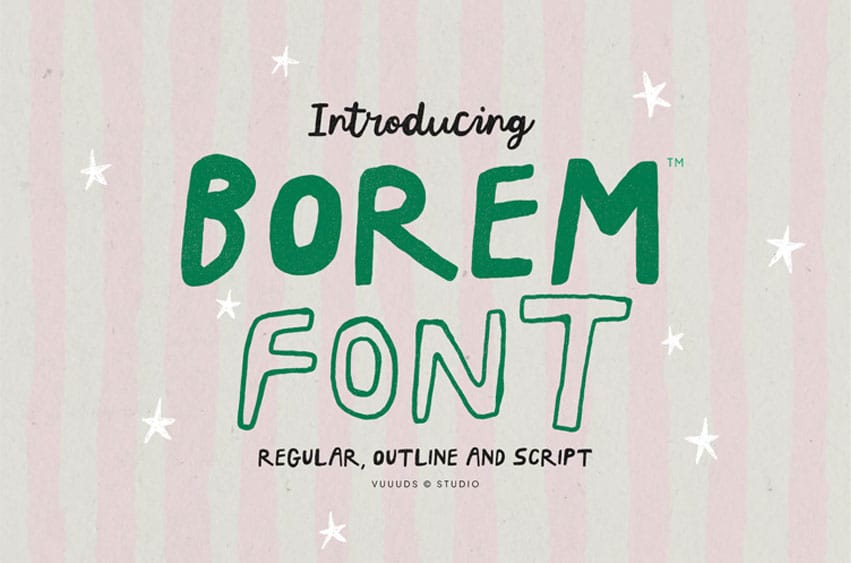
Borem Font is handcrafted unique font with 3 different style. regular, outline and script. Every single letters have been uniquely crafted. This font including beautiful alternate glyph.